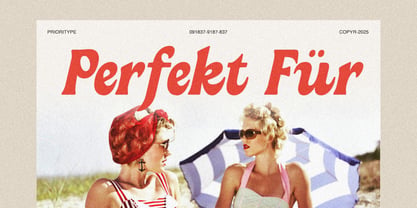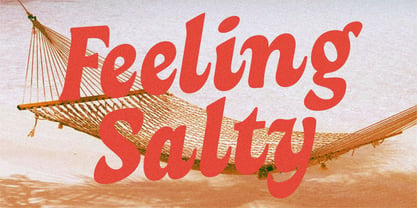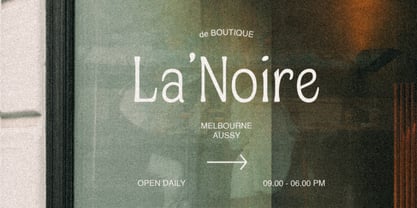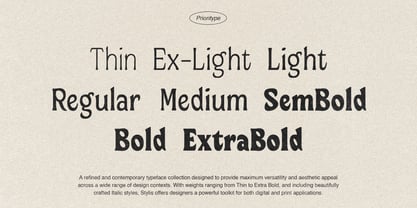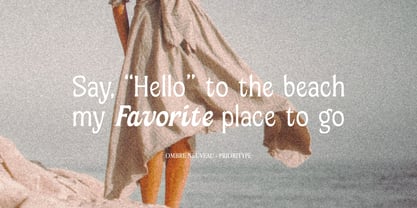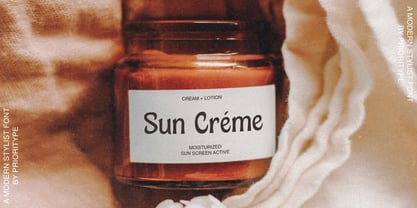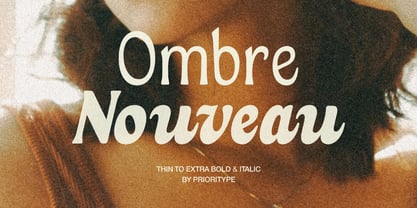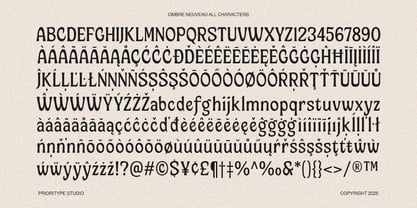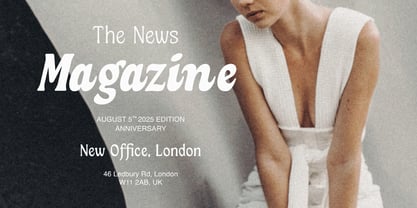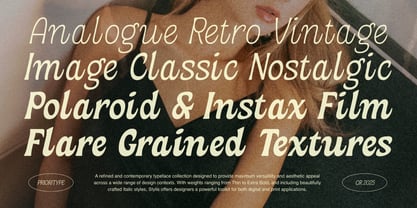
Ombre Nouveau
by Prioritype
The Ombre Nouveau Font Family was designed by Prio Nurokhim Aji and published by Prioritype. Ombre Nouveau contains 18 styles and family package options. More about this family
Ombre Nouveau is a stylish serif font family that blends retro charm with contemporary elegance. Spanning from Thin to Extra Bold, each weight is meticulously crafted to bring both character and clarity to your designs. The family also includes beautifully slanted Italic styles for every weight, offering flexibility and flair. Perfect for editorial layouts, branding, logos, and sophisticated headlines, Ombre Nouveau delivers a timeless look with a modern twist. With a full Variable Font file included, you can seamlessly fine-tune weight and style to match your creative needs. Let your typography glow in shades of nostalgia and bold expression — with Ombre Nouveau. Thank you for choosing Prioritype Co.
Designers: Prio Nurokhim Aji
Foundry: Prioritype